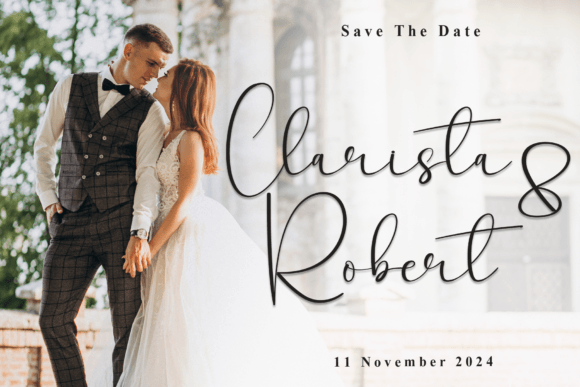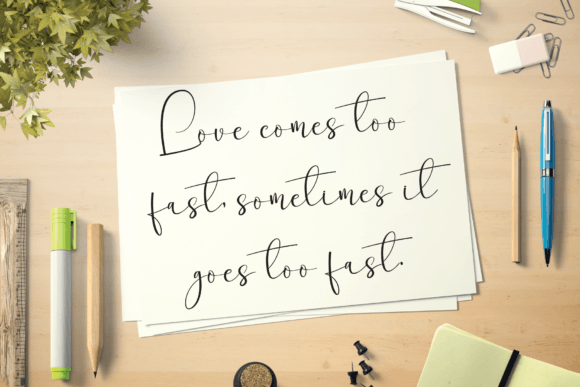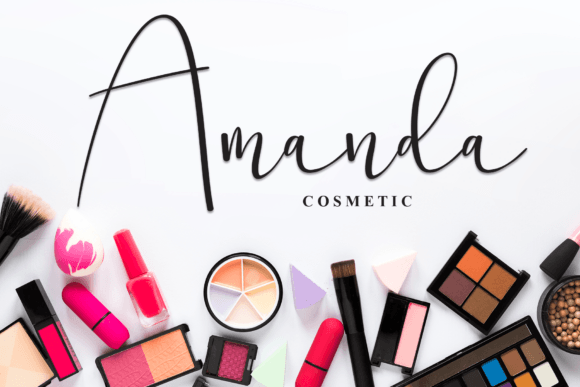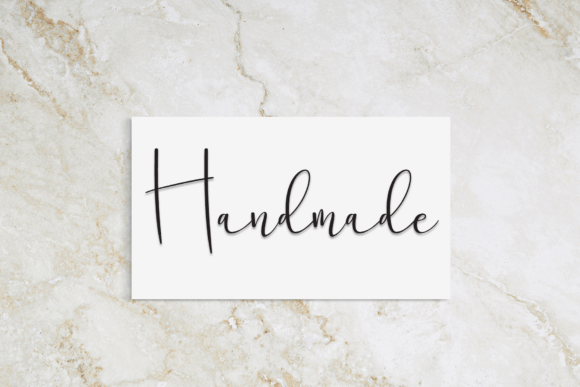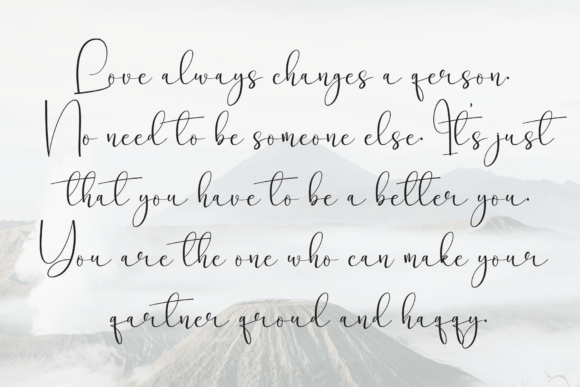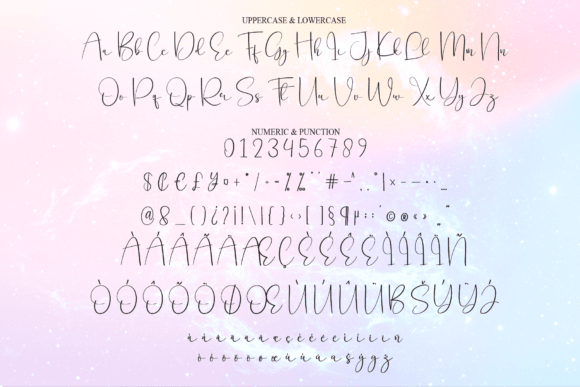
The Fantastis Font: A Lovely Handwritten Script for Your Creative Projects
Have you ever been in the middle of a design project, and suddenly, you’re stuck on finding the perfect font? I recall a recent experience where I was working on a client’s wedding invitation, and I just couldn’t seem to find a font that captured the elegance and playfulness I was looking for. That’s when I stumbled upon the Fantastis font, and it completely transformed my design. In this article, I’ll share my journey with Fantastis, its features, and how you can make the most of it in your creative projects.
A Personal Review of Fantastis
What I Love About Fantastis ✨
- 💫 Elegant and playful: Fantastis has a unique blend of sophistication and whimsy that makes it perfect for a wide range of designs.
- ✅ Flowing lines: The font’s smooth, connected lines give it a personal and artistic touch that’s hard to find in digital fonts.
- 🎨 Versatile: Fantastis works beautifully for cards, logos, invitations, and more, making it a great addition to your font library.
- ⚠️ Limited use in small sizes: Due to its intricate details, Fantastis can become difficult to read in very small sizes.
The Backstory of Fantastis
Fantastis was created with the intention of capturing the essence of handwritten elegance and playfulness. The designer aimed to create a font that would feel both personal and artistic, perfect for a wide range of creative projects. While the exact details of the design process are unknown, it’s clear that Fantastis has been crafted with love and attention to detail.
Q: What type of projects is Fantastis best suited for?
A: Fantastis is versatile and can be used for cards, logos, invitations, and more. Its elegant and playful nature makes it suitable for a wide range of designs.
Q: Can I use Fantastis in my social media graphics?
A: Absolutely! Fantastis can add a touch of elegance and playfulness to your social media graphics, making them stand out.